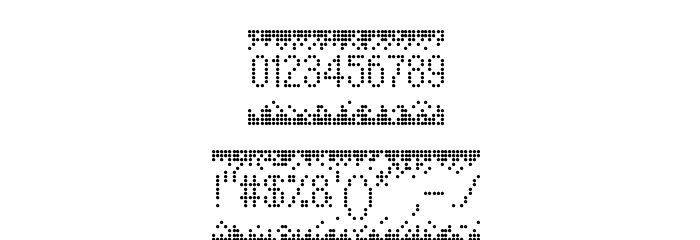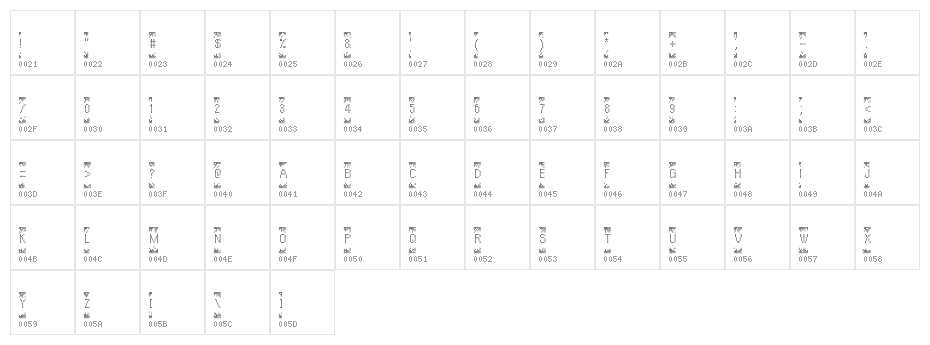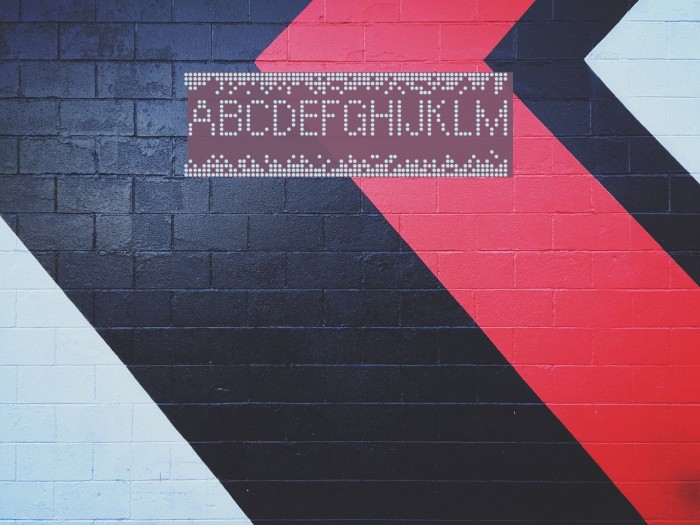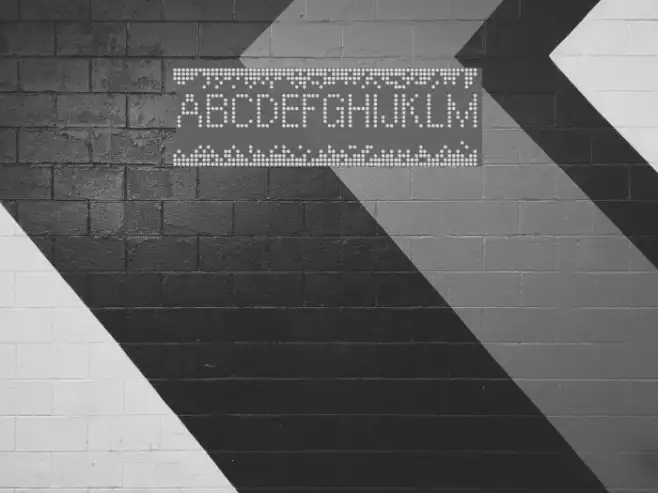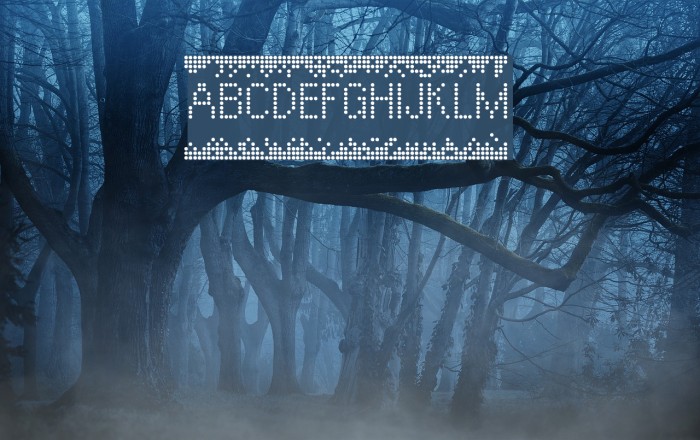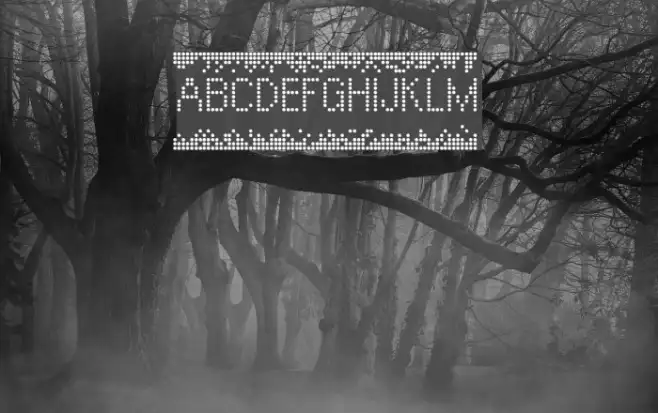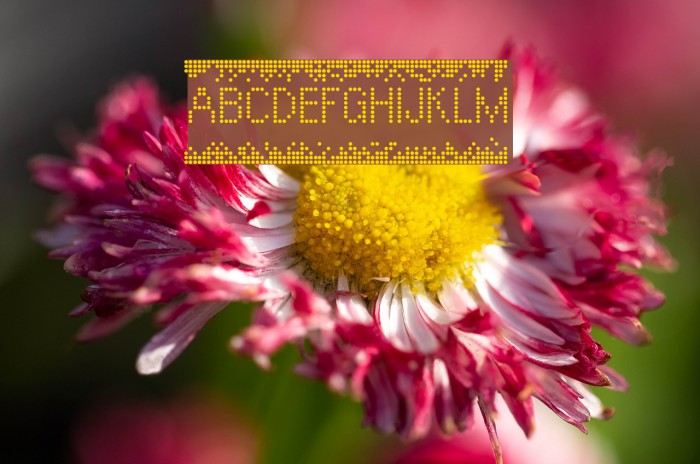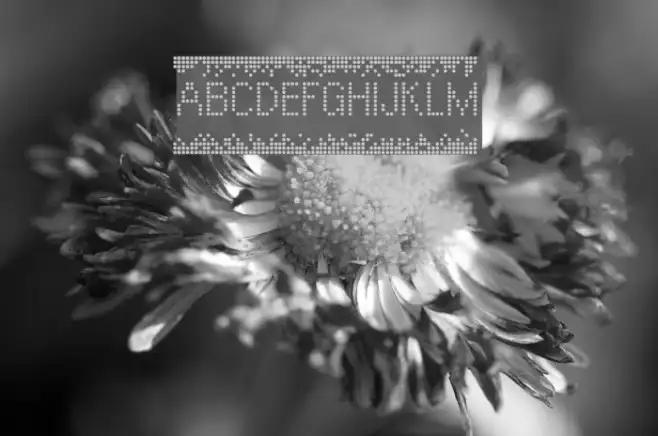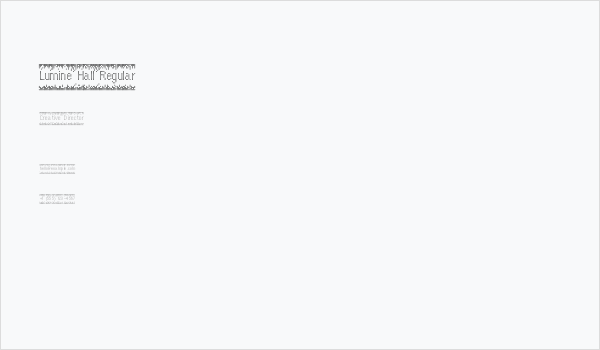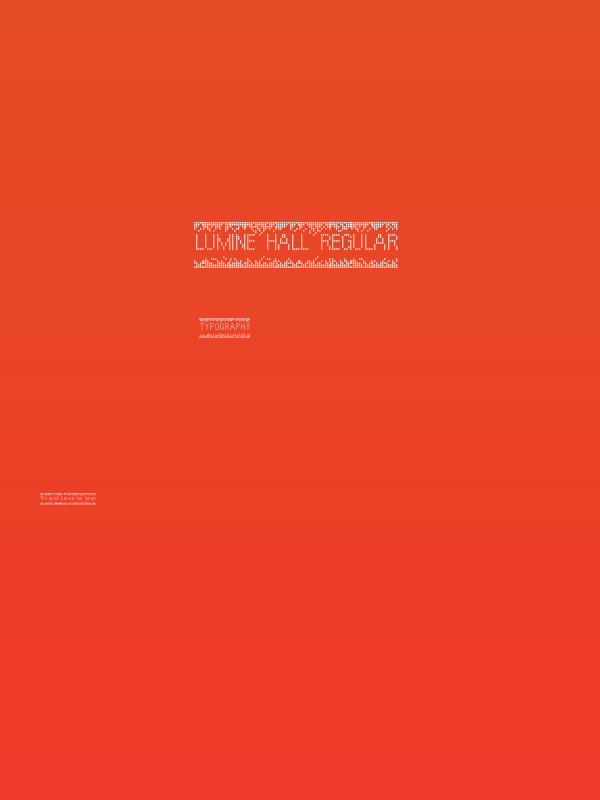
Lumine Hall Regular Font
Lumine Hall Regular Description
This font features a unique dot matrix style that gives it a digital, retro appearance reminiscent of early computer displays or LED screens. Each character is composed of a grid of dots, creating a pixelated effect that is both nostalgic and modern. The uppercase and lowercase letters maintain a consistent height, while the numerals and special characters are designed to match the overall aesthetic. This font is ideal for projects that aim to evoke a sense of technology or vintage computing.
| Use Case | Logos, Display text, Digital interfaces |
| Proposed Projects | Ideal for retro-themed designs, digital displays, tech-related branding, and vintage computer game graphics. |